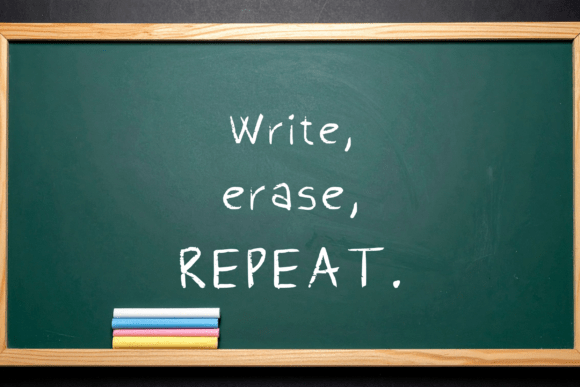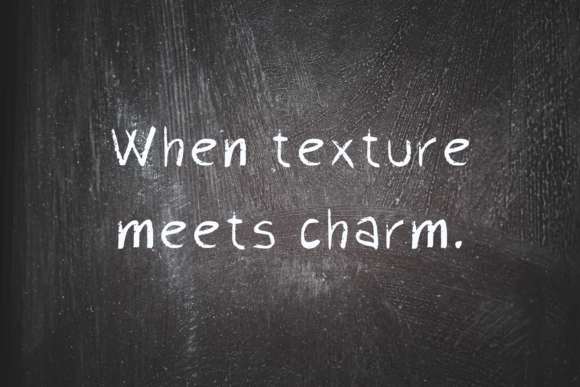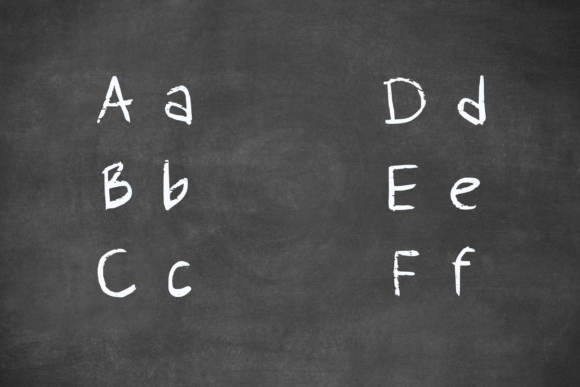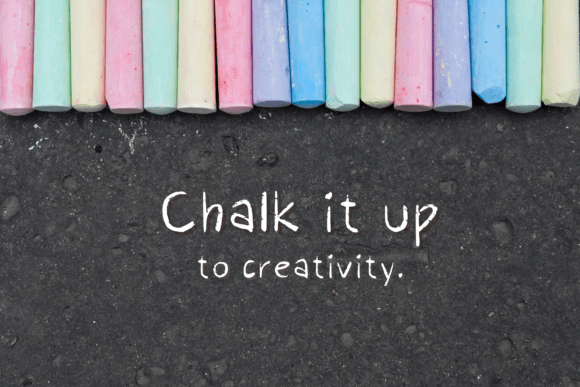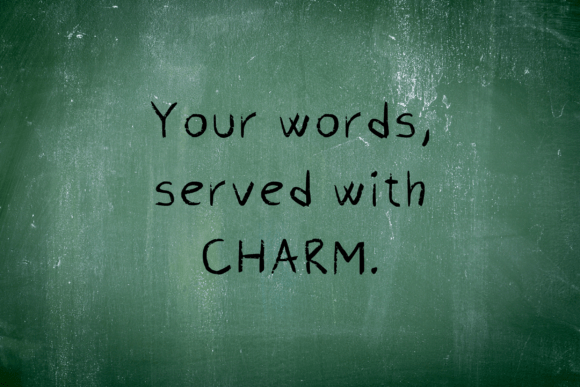
Introducing Chalk Perfect Font: The Ultimate Hand-Drawn Display Font for Creative Designs
Are you tired of using generic, overused fonts in your designs? Do you want to add a touch of authenticity and playfulness to your projects? Look no further than Chalk Perfect Font, a hand-drawn display font that captures the essence of real chalkboard writing. With its textured strokes and natural, handmade look, Chalk Perfect is the perfect choice for designers, crafters, and educators looking to add a cozy, handwritten charm to their work.
The Inspiration Behind Chalk Perfect
Chalk Perfect Font is inspired by the imperfect, yet endearing quality of handwriting on a chalkboard. The font’s creator aimed to replicate the texture and feel of real chalkboard writing, with all its quirks and imperfections. The result is a font that looks like it was written with real chalk, complete with uneven strokes, subtle texture, and a warm, inviting feel.
What Makes Chalk Perfect So Special?
So, what sets Chalk Perfect apart from other fonts? Here are just a few reasons why this font is a game-changer for designers and crafters:
- Hand-drawn with love: Chalk Perfect is a hand-drawn font, crafted with care and attention to detail. Each letter and symbol has been carefully designed to capture the essence of real chalkboard writing.
- Textured strokes: The font features textured strokes that give it a natural, handmade look. This texture adds depth and visual interest to any design, making it perfect for projects that need a little extra personality.
- Authentic and playful: Chalk Perfect is both authentic and playful, making it perfect for a wide range of design projects. Whether you’re creating a classroom poster, café menu, or rustic signage, this font brings a touch of whimsy and charm to your work.
- Versatile: Chalk Perfect is a versatile font that can be used for a variety of design projects. Its rustic, handmade look makes it perfect for craft projects, while its clear, legible letters make it suitable for body text and headings.
Use Cases for Chalk Perfect Font
So, what can you use Chalk Perfect Font for? The possibilities are endless! Here are just a few ideas to get you started:
- Classroom posters: Add a touch of personality to your classroom posters with Chalk Perfect Font. Its clear, legible letters make it perfect for headings and titles, while its textured strokes add a playful touch.
- Café menus: Give your café menu a rustic, homespun feel with Chalk Perfect Font. Its handmade look and feel make it perfect for listing menu items, prices, and promotions.
- Rustic signage: Chalk Perfect Font is perfect for creating rustic signage that adds a touch of charm to any business or event. Use it to create eye-catching signs, banners, and posters that stand out from the crowd.
- Craft projects: Add a personal touch to your craft projects with Chalk Perfect Font. Its handmade look and feel make it perfect for creating unique, one-of-a-kind crafts that showcase your personality and style.
Tips for Using Chalk Perfect Font
Here are a few tips for getting the most out of Chalk Perfect Font:
- Use it for headings and titles: Chalk Perfect Font is perfect for headings and titles, where its textured strokes and handmade look can really shine.
- Experiment with colors: Chalk Perfect Font looks great in a variety of colors, from bright and bold to muted and pastel. Experiment with different colors to find the perfect look for your design.
- Pair it with other fonts: Chalk Perfect Font pairs well with a variety of other fonts, from clean and modern to playful and scripty. Experiment with different font combinations to find the perfect look for your design.